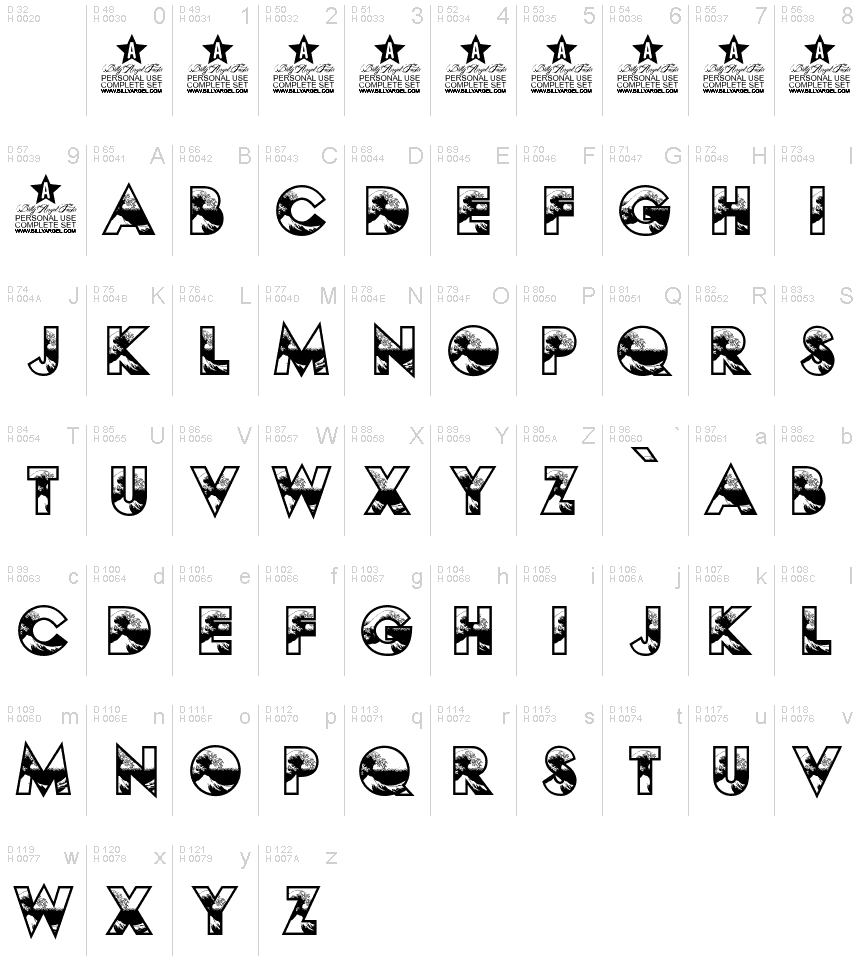
HOKUSAI PERSONAL USE Regular
HOKUSAI, the latest decorative display font designed by Billy Argel is a bold and eye-catching typeface that makes a statement. With its extra-bold weight, HOKUSAI is perfect for creating attention-grabbing headlines, posters, logos and more. The unique style of this font draws inspiration from Japanese art and culture, adding a touch of Eastern flair to any design project. Whether you're looking to create an engaging social media post or an elegant wedding invitation, HOKUSAI is the perfect choice for adding personality and charm to your designs. Give your projects an artistic edge with HOKUSAI today!
Three layered fonts.